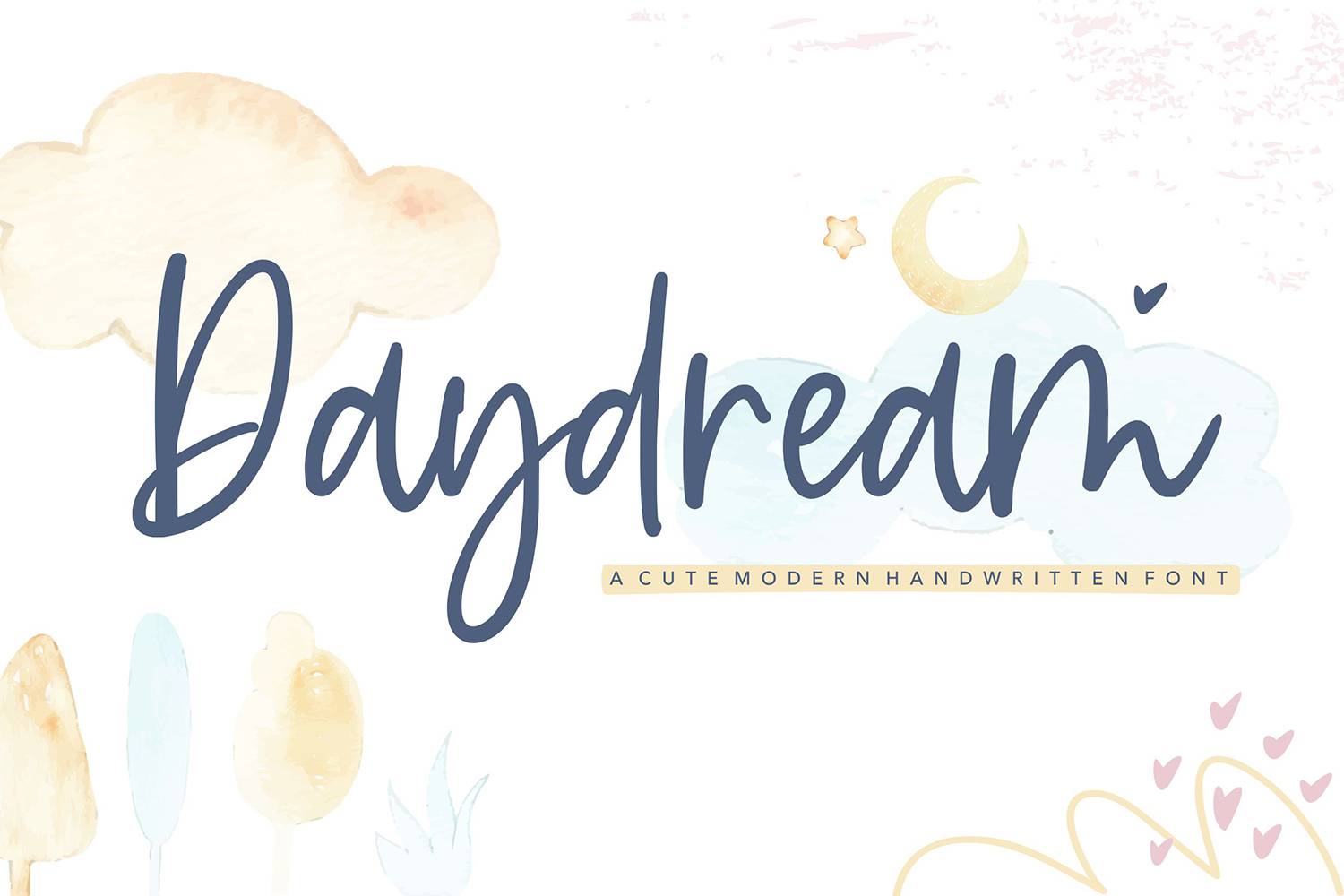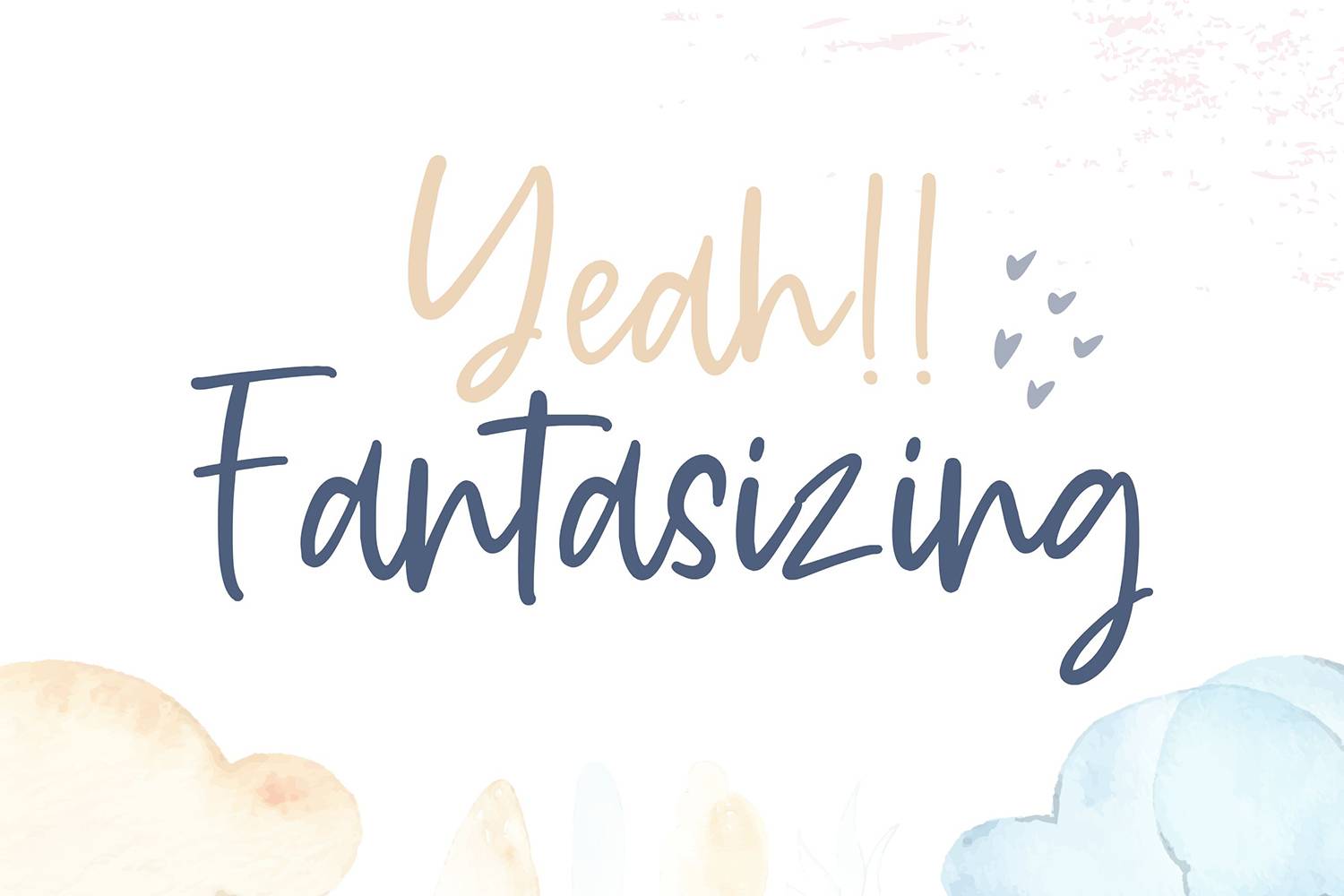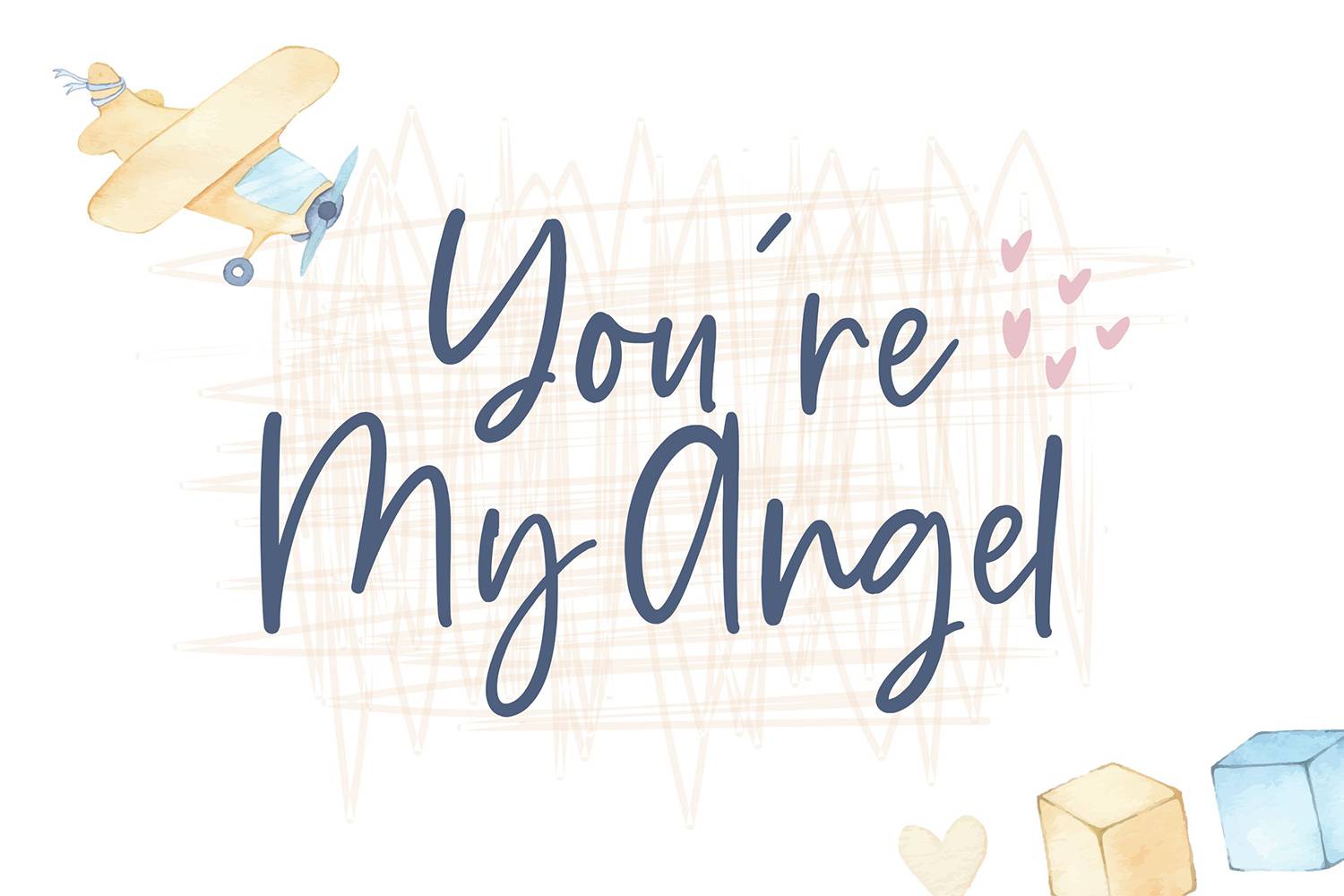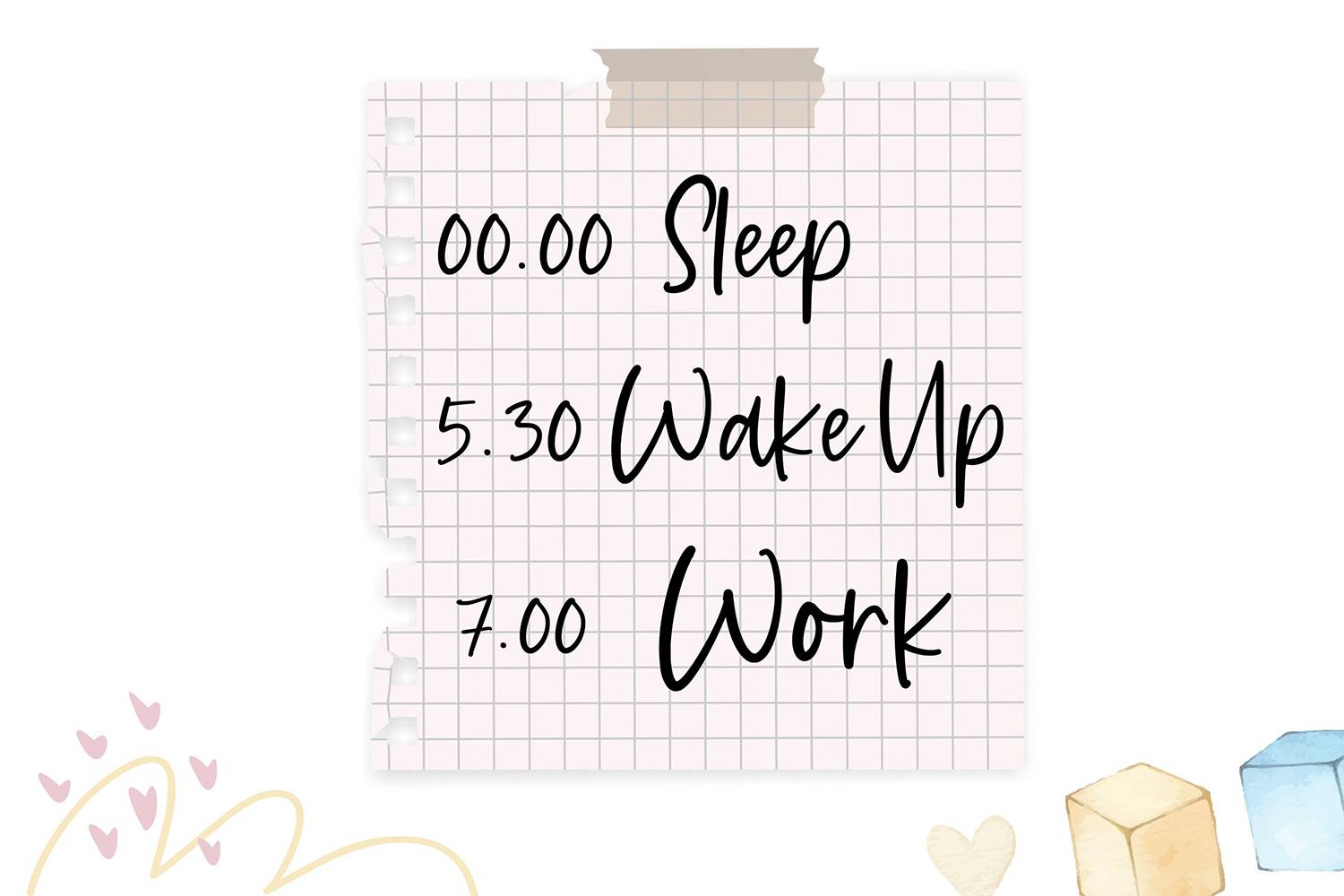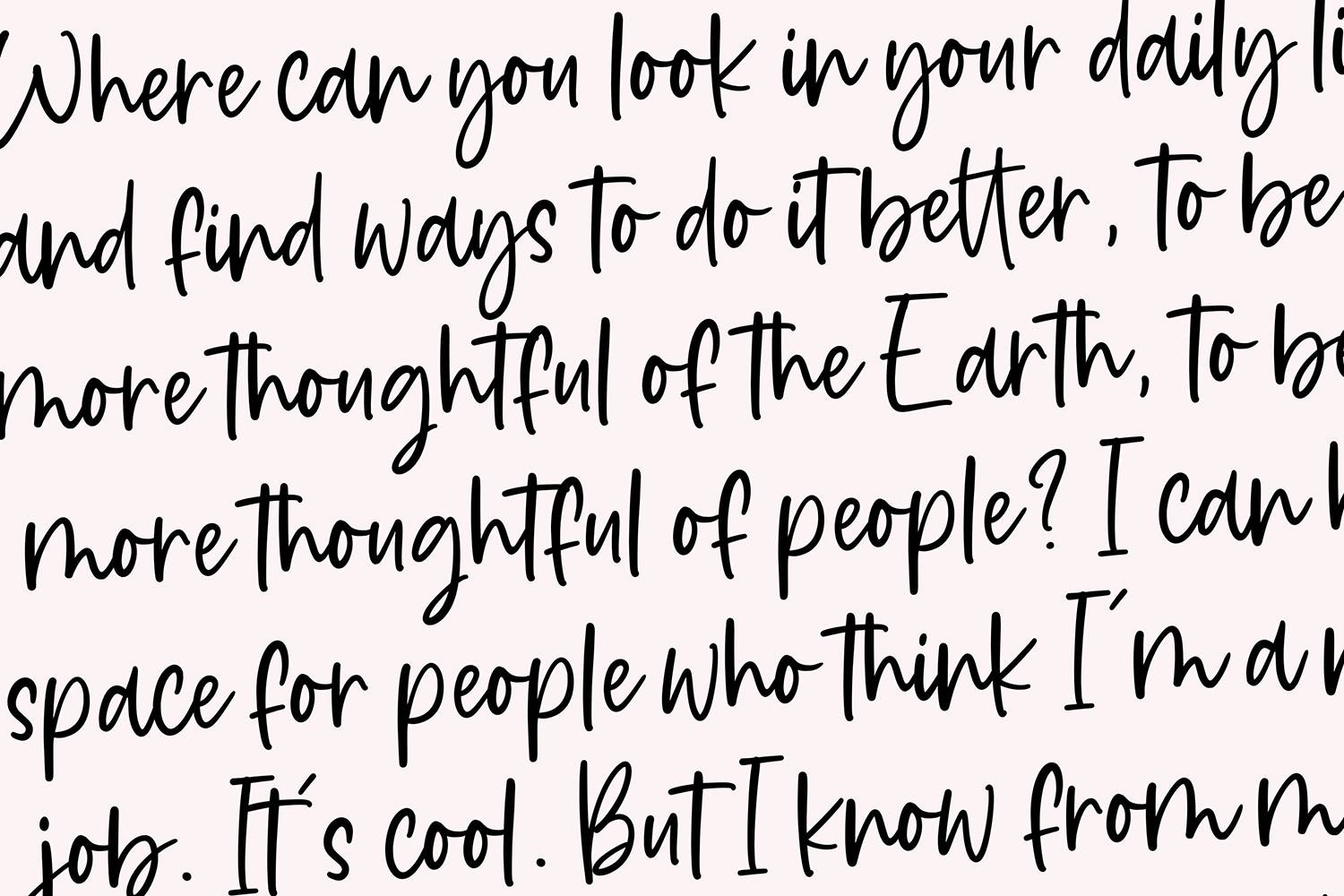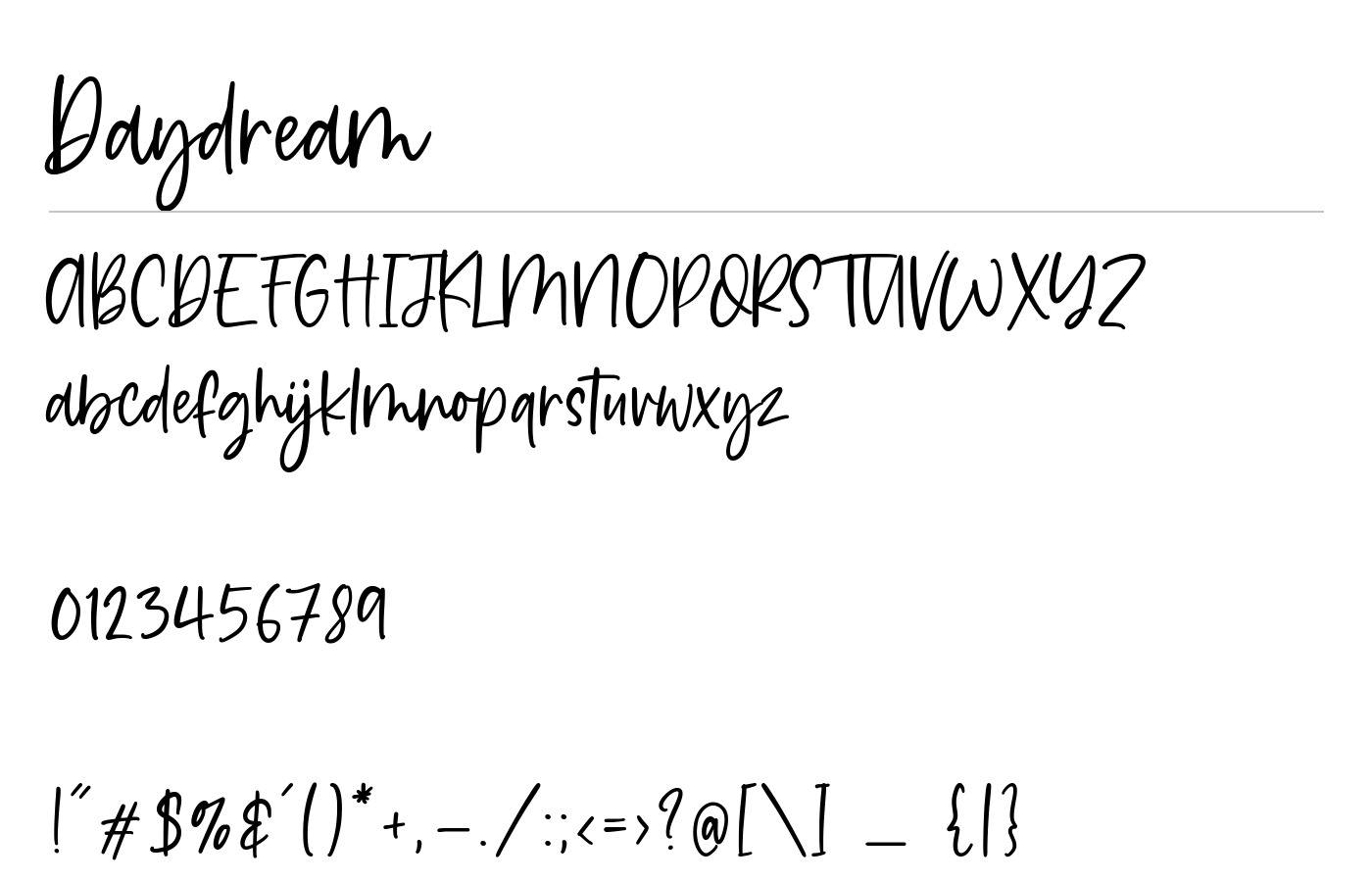
Daydream is a playful, handwritten script font with a casual and airy feel, featuring tall, slender letterforms with consistent, light strokes and a slight bounce in rhythm. Its informal style makes it ideal for branding, invitations, and creative projects that want to evoke friendliness and personal touch. This font works best in headlines and display uses where a relaxed, approachable vibe is desired.
Daydream Font
About Daydream Font
| Font family | Daydream Font |
| Release date | 2020-04-16 |
| Designer | Balpirick 2020 |